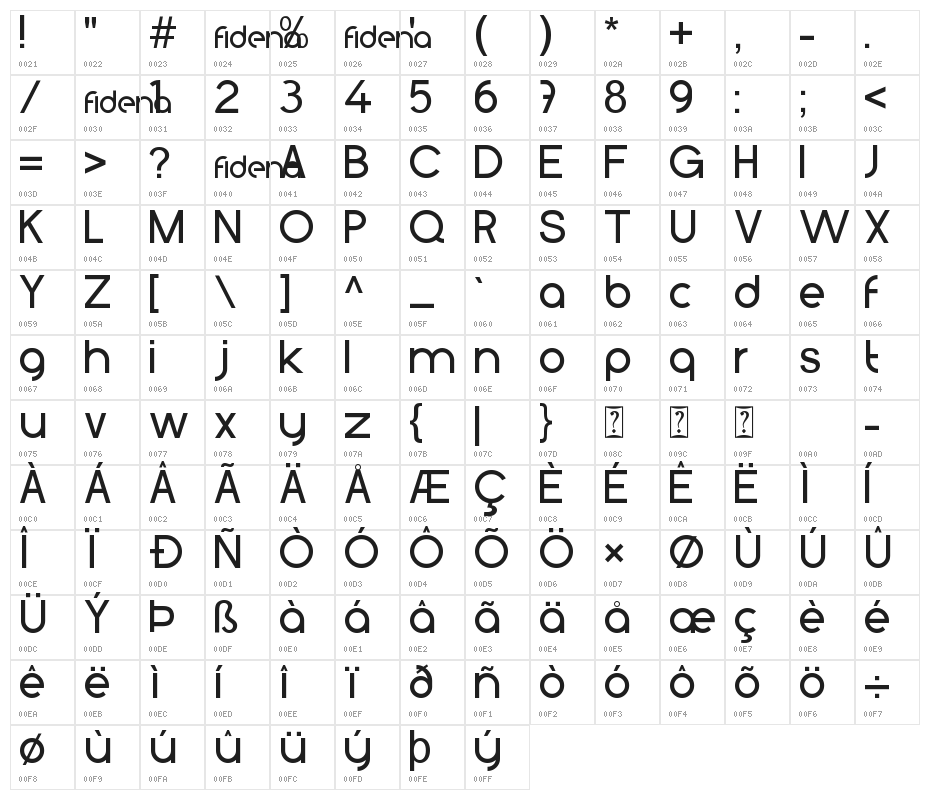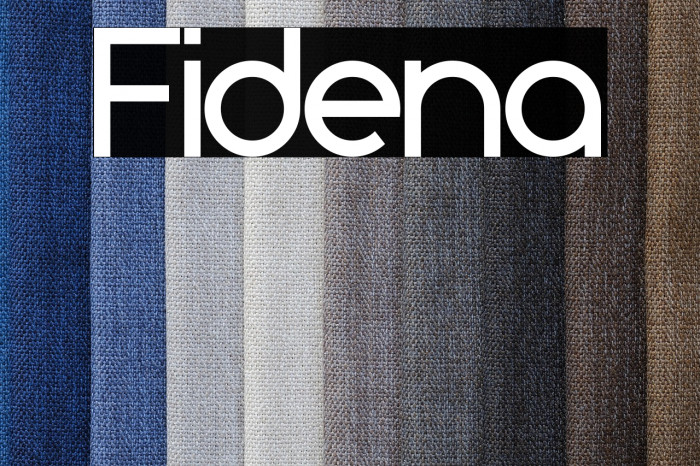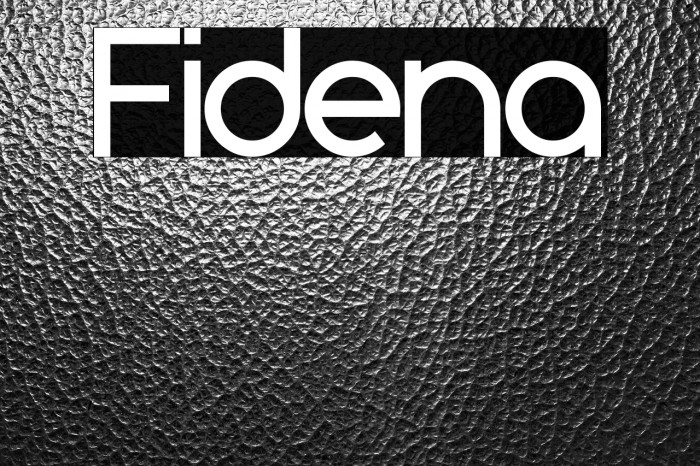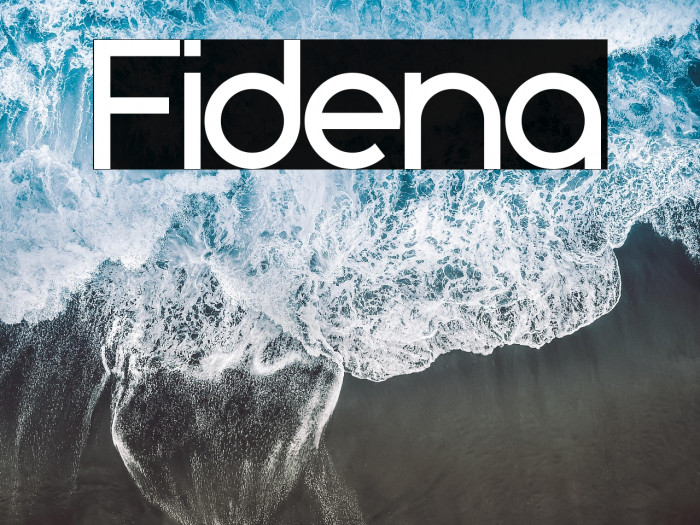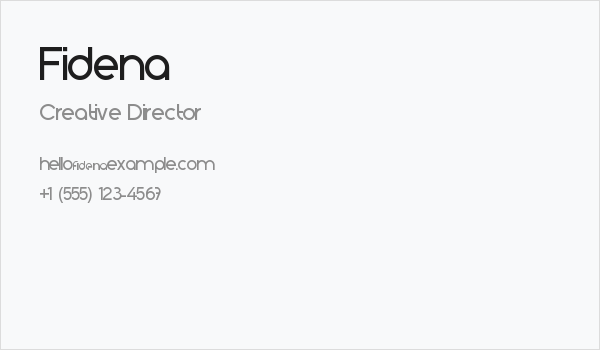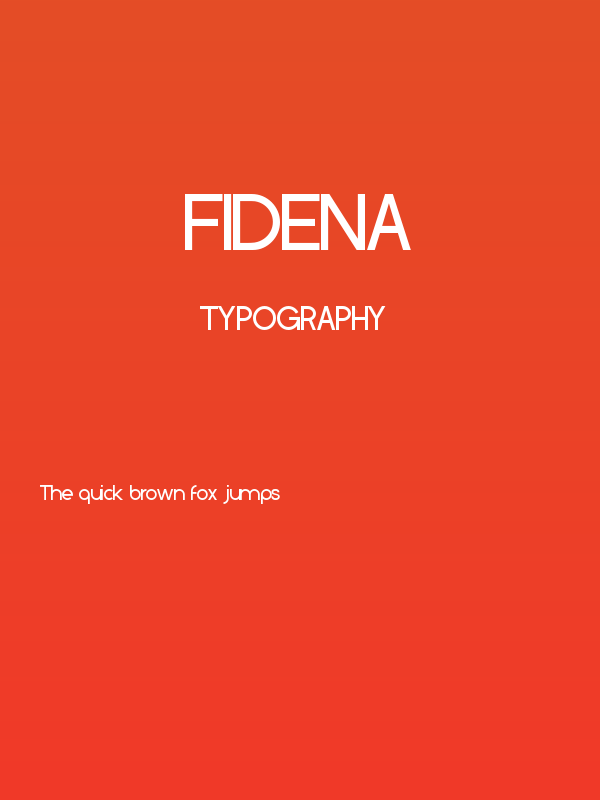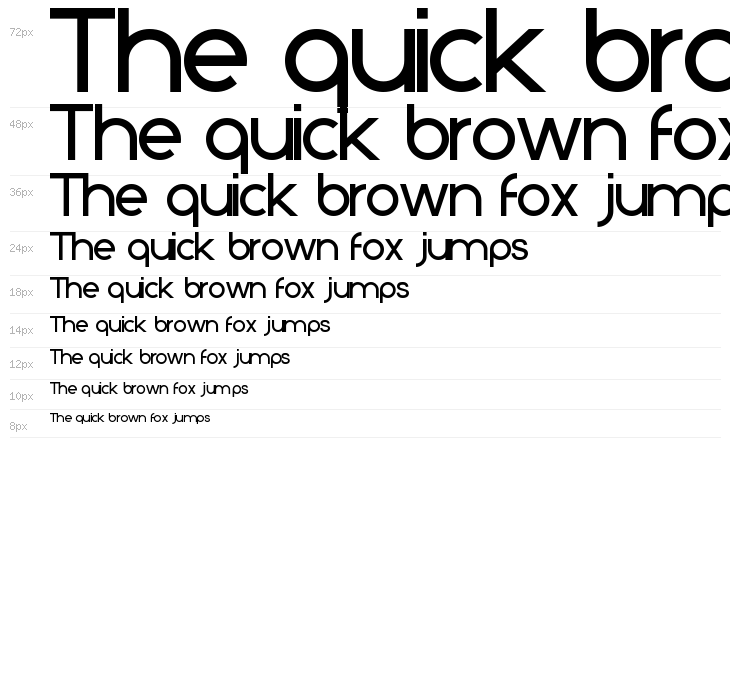
Fidena Font
Fidena Description
This font features a modern and sleek sans-serif design with clean lines and a geometric structure. The characters are well-balanced, offering a harmonious appearance that is both professional and approachable. The uppercase letters are bold and commanding, while the lowercase letters maintain a consistent flow with rounded edges that soften the overall look. The numerals are clear and legible, matching the style of the alphabetic characters. Special characters are included, maintaining the same geometric and contemporary aesthetic. This font is versatile, suitable for a wide range of applications from digital to print media.